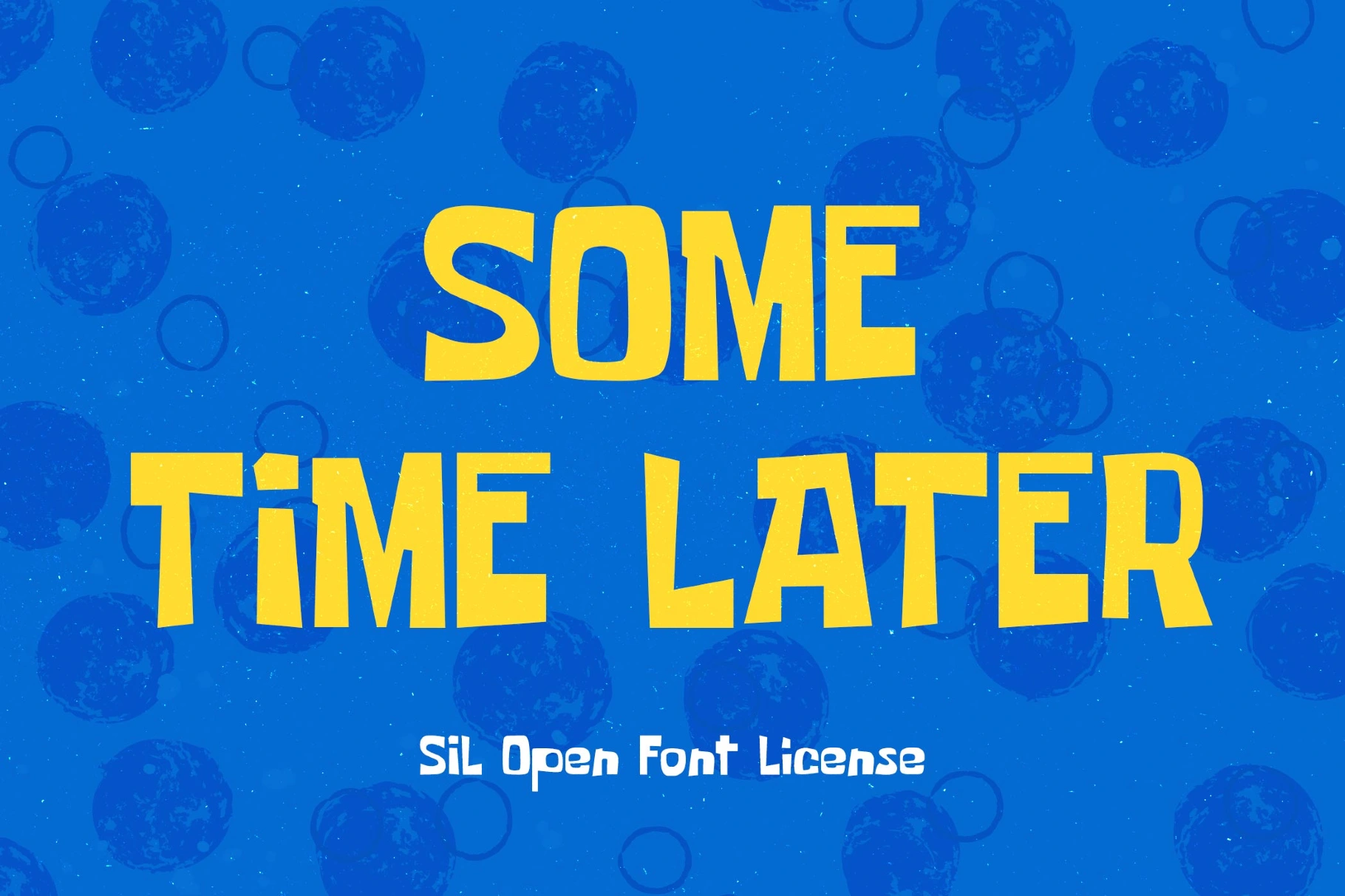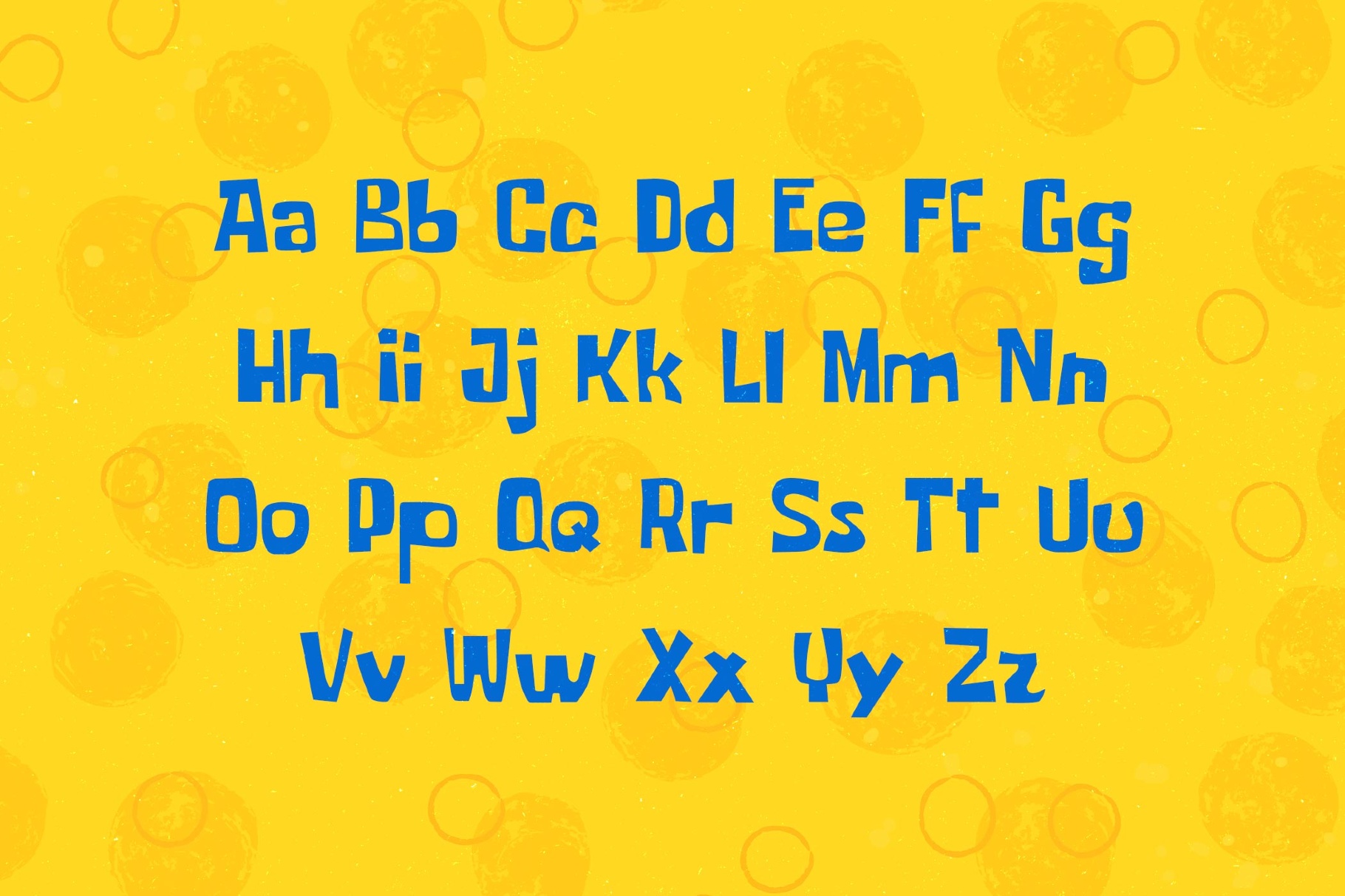
Some Time Later Font
Some Time Later
Some Time Later is a cartoon font with the lopsided bounce and tropical absurdity of SpongeBob SquarePants title cards, comic intertitles, and hand-painted TV lettering made for punchline timing. This fun cartoon font fits meme graphics, poster headlines, children’s branding, YouTube thumbnails, party invitations, sticker designs and playful packaging.